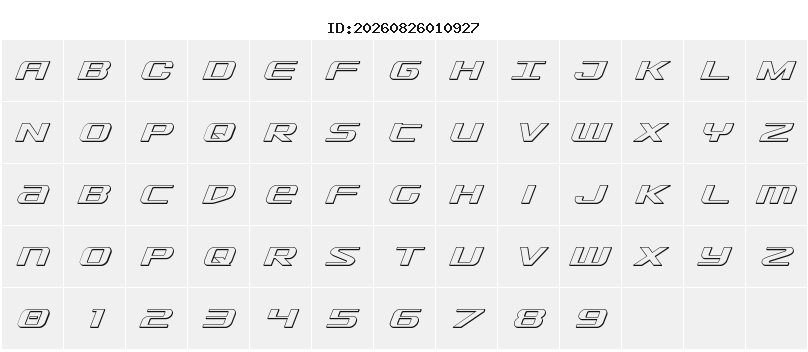
About SDF 3D Italic.ttf
SDF 3D Italic.ttf is a modern, elegant sans-serif font designed for ultimate readability and visual harmony. Perfect for branding, headlines, web design, and print materials.